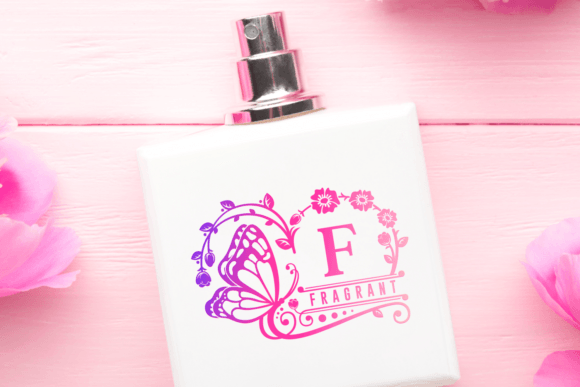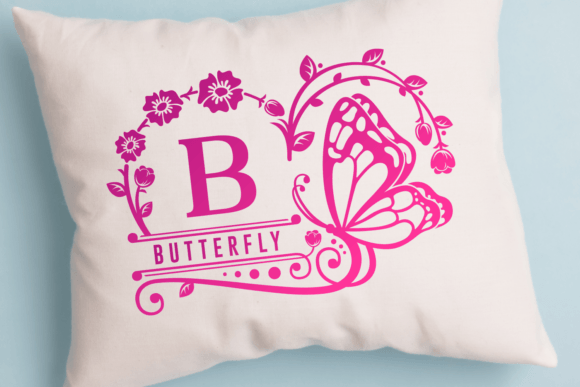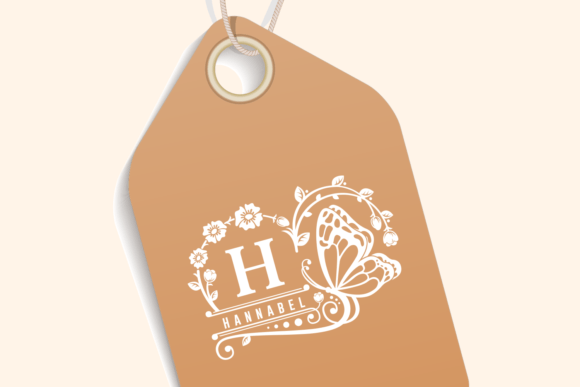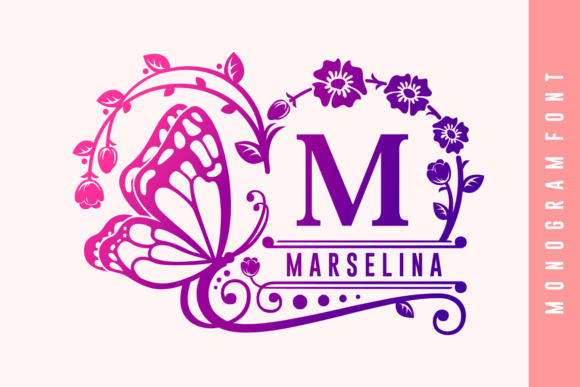
Introduction to Marselina Font
Marselina is a cute and lovely decorative font featuring monogram letters with beautiful butterfly designs.
With intricate details and charming flourishes, this font is perfect for creating personalized invitations, stationary, and other charming designs Ideal for anyone who wants to add a touch of whimsy and elegance to their projects.